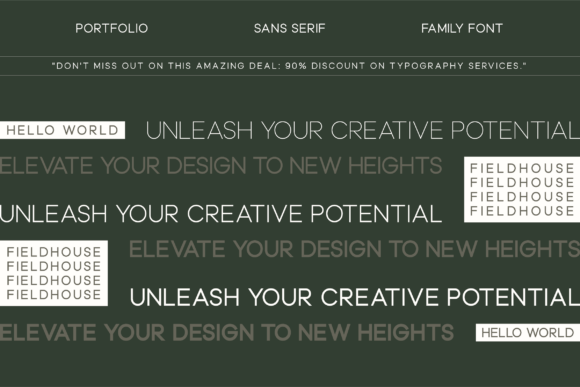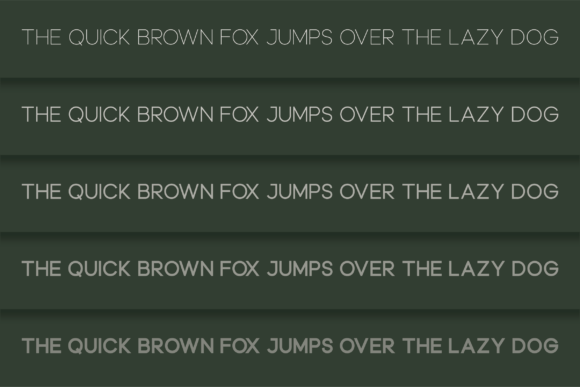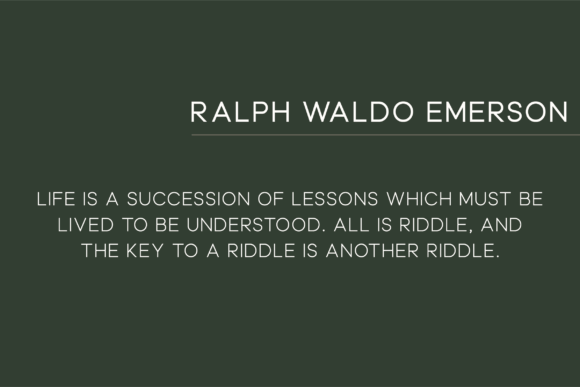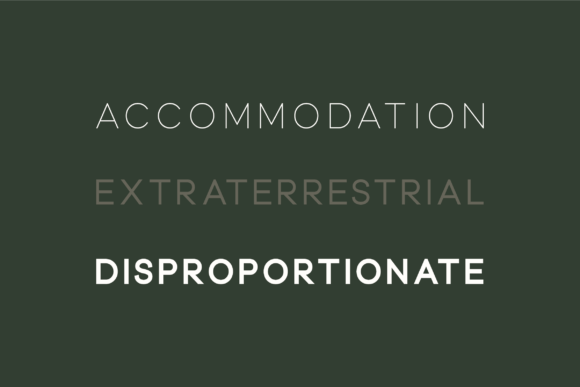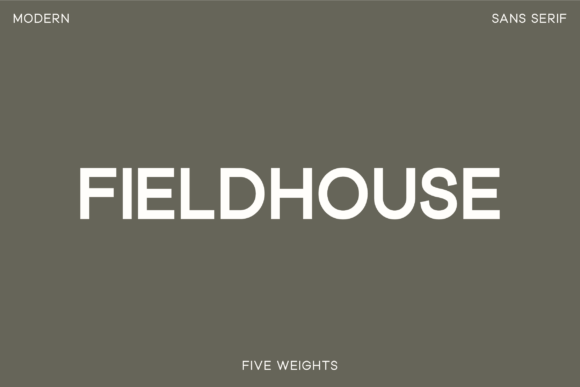
Introducing Fieldhouse Font Family — A Masterpiece of Elegance and Minimalism
In the world of typography, a well-crafted font can elevate your design to new heights. Meet Fieldhouse Font, a sans-serif font family that embodies the perfect blend of elegance and minimalism. With its 5 distinct weights, Fieldhouse Font offers unparalleled versatility, making it an ideal choice for a wide range of projects, from magazines and logos to film posters and beyond.
Precision-Crafted for Perfection
Fieldhouse Font is the result of meticulous attention to detail and a passion for typographic excellence. Each letterform has been carefully crafted to strike the perfect balance between sophistication and simplicity. The result is a font that exudes timeless charm and contemporary luxury, making it perfect for designers and crafters looking to add a touch of elegance to their creations.
Unleash Your Creativity with 5 Distinct Weights
Fieldhouse Font offers 5 distinct weights, ranging from light to bold, allowing you to adapt your design to suit your needs. Whether you’re working on a magazine layout, a logo design, or a film poster, Fieldhouse Font provides the flexibility to create a visually stunning design that captures your audience’s attention. The 5 weights include:
- Light: Perfect for body text and captions
- Regular: Ideal for headlines and titles
- Medium: A versatile weight for a wide range of applications
- Bold: Great for adding emphasis and creating visual impact
- Extra Bold: Perfect for large-scale designs and display text
Seamless Integration for Endless Design Possibilities
Fieldhouse Font is designed to integrate seamlessly with your design workflow. Its clean lines, precise curves, and carefully crafted letterforms ensure that your text looks crisp and professional, regardless of the application. From digital designs to print materials, Fieldhouse Font adapts effortlessly, giving you the freedom to focus on your creative vision.
Why Choose Fieldhouse Font?
So, what sets Fieldhouse Font apart from other font families? Here are just a few reasons why designers and crafters are falling in love with this elegant sans-serif font:
- Timeless Elegance: Fieldhouse Font’s classic design ensures that your creations will stand the test of time, remaining stylish and sophisticated for years to come.
- Versatility: With 5 distinct weights, Fieldhouse Font adapts to a wide range of design applications, making it a valuable addition to your font library.
- Attention to Detail: Each letterform has been meticulously crafted to ensure precision and consistency, giving your designs a professional finish.
- Contemporary Luxury: Fieldhouse Font’s sleek, modern design adds a touch of luxury to your creations, perfect for high-end brands and designs.
Transform Your Designs with Fieldhouse Font
Ready to elevate your designs to new heights? With Fieldhouse Font, you can unlock a new level of creativity and sophistication. Whether you’re a seasoned designer or a crafty DIY enthusiast, Fieldhouse Font provides the perfect tools to bring your vision to life.
- Create stunning magazine layouts and editorial designs
- Design eye-catching logos and branding materials
- Develop striking film posters and movie titles
- Add a touch of elegance to your digital designs and social media graphics
With Fieldhouse Font, the possibilities are endless. Join the community of designers and crafters who have already discovered the power of this exceptional font family. Unlock your creative potential and take your designs to new heights with Fieldhouse Font.